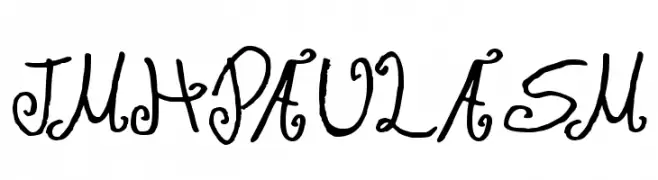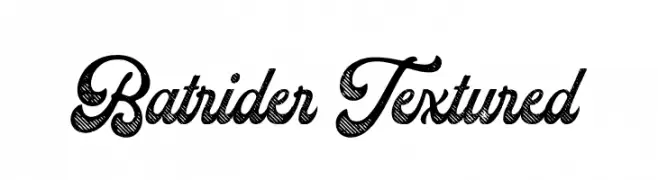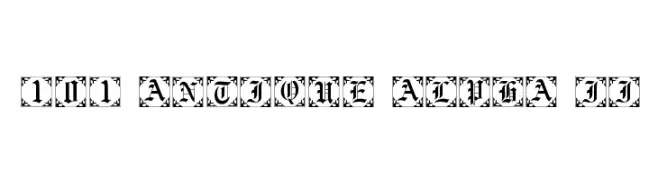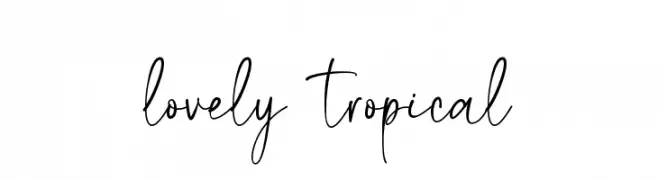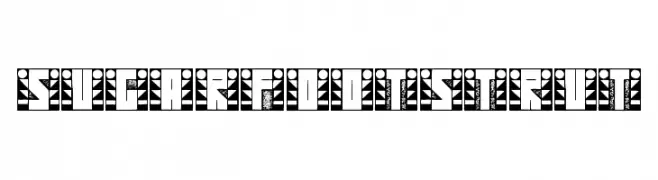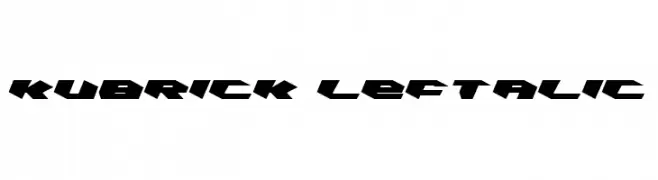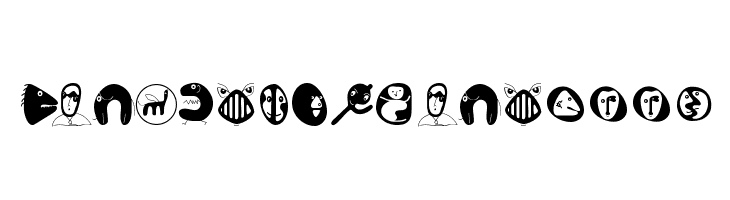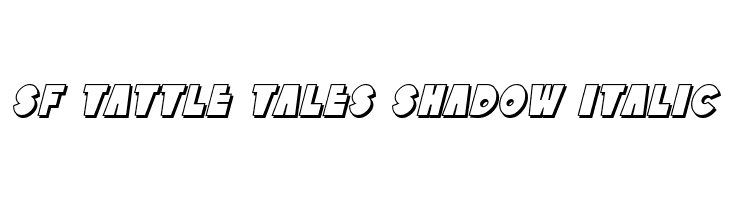
A bold, textured script font with a vintage, handcrafted feel.
A playful, handwritten-style font with bold, dynamic characters.
An ornate, blackletter-style font with decorative floral frames.
Playful and elegant handwritten script font.
A bold, decorative font with intricate patterns and geometric designs.
A bold, italic font with a dynamic and elegant style.
A playful, casual handwritten font with rounded, consistent strokes.
A bold, angular, and futuristic font with leftward slanting characters.